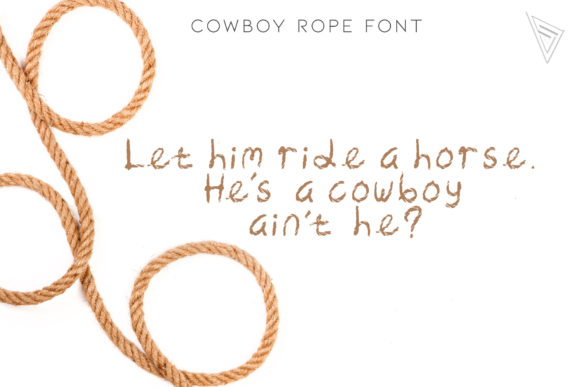
Cowboy Rope Font
Cowboy Rope is a cool and uniquely designed display font. Whatever the topic, this font will be a wonderful asset to your font library, as it has the potential to enhance any creation.